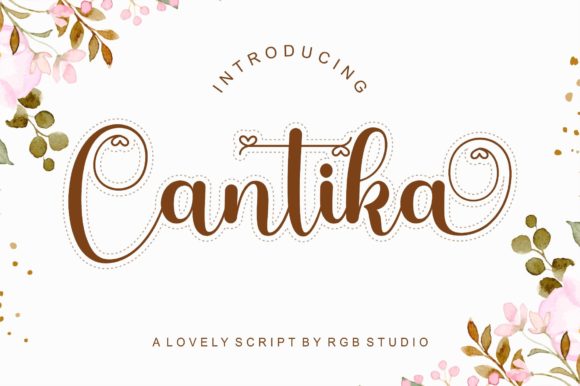
The Sweet Charm of Cantika Font: A Designer’s Delight
I still remember the time I was working on a wedding invitation project, and I just couldn’t find the perfect font to capture the romantic and whimsical feel my client was looking for. I scrolled through page after page of font options, but nothing seemed quite right. That was until I stumbled upon Cantika Font – a beautiful, romantic, and bouncy script font that instantly stole my heart. In this article, I’ll share my experience with Cantika Font, its features, and how to make the most of it in your designs.
First Impressions: What I Love About Cantika Font
Cantika Font has quickly become one of my go-to fonts for a variety of design projects. Here are some things I love about it:
- ✨ Romantic and whimsical feel: Cantika Font has a unique charm that adds a touch of romance and playfulness to any design.
- ✅ PUA encoded: This means that accessing glyphs and swashes is a breeze, making it easy to customize your designs.
- 💕 Perfect for various design projects: From wedding invitations and greeting cards to social media quotes, branding, and logos, Cantika Font is versatile and adaptable.
- 🎨 Beautifully crafted: The font’s intricate details and flowing lines make it a joy to work with.
While Cantika Font is an amazing addition to any design project, there are a few things to keep in mind:
- 🤔 Limited use in formal designs: Due to its playful and romantic nature, Cantika Font may not be the best choice for formal or corporate designs.
- ⚠️ May require some experimentation: To get the most out of Cantika Font’s features, you may need to experiment with different settings and combinations.
The Story Behind Cantika Font
Cantika Font was created with the intention of capturing the essence of romance and playfulness. Its designer aimed to craft a font that would be perfect for designs that require a touch of whimsy and charm. With its intricate details and flowing lines, Cantika Font has become a popular choice among designers and crafters.
| Font Name | Cantika Font |
| Author | RGB Studio |
| What is Cantika Font best used for? | Cantika Font is perfect for designs that require a romantic and whimsical feel, such as wedding invitations, greeting cards, social media quotes, and branding. |
| Is Cantika Font PUA encoded? | Yes, Cantika Font is PUA encoded, making it easy to access glyphs and swashes. |
| Is Cantika Font suitable for formal designs? | No, Cantika Font’s playful and romantic nature makes it less suitable for formal designs. |